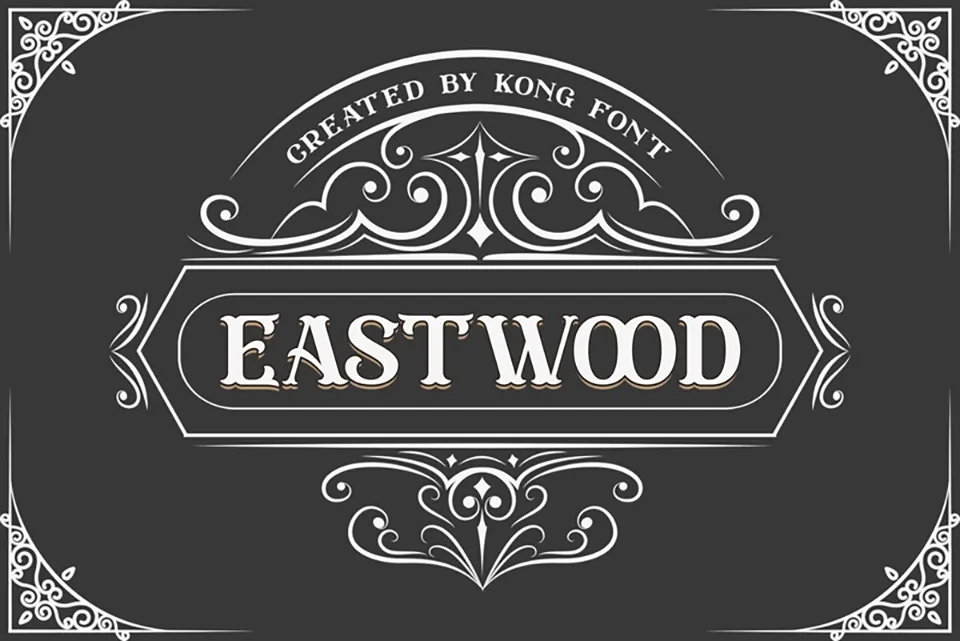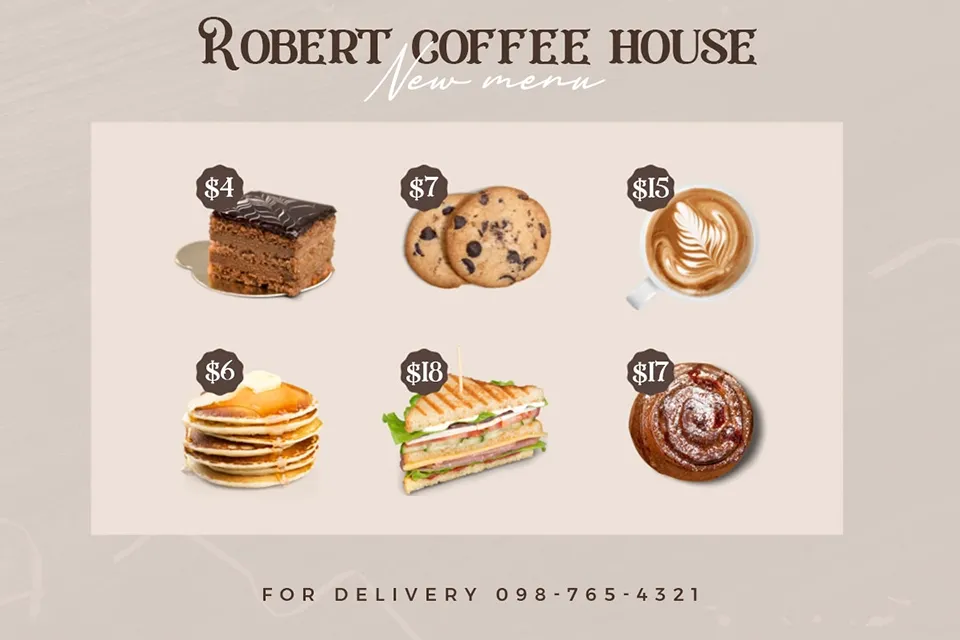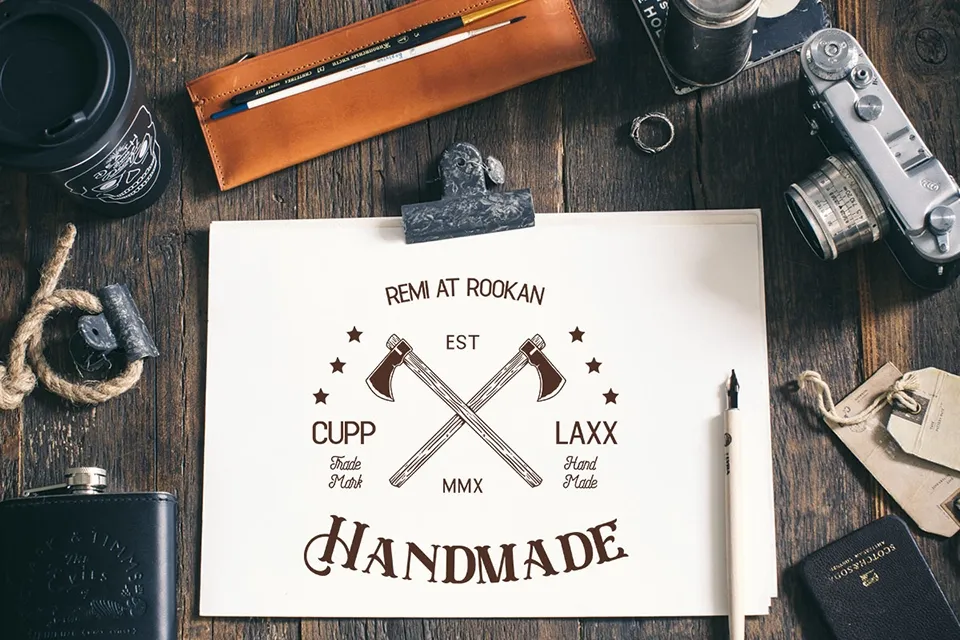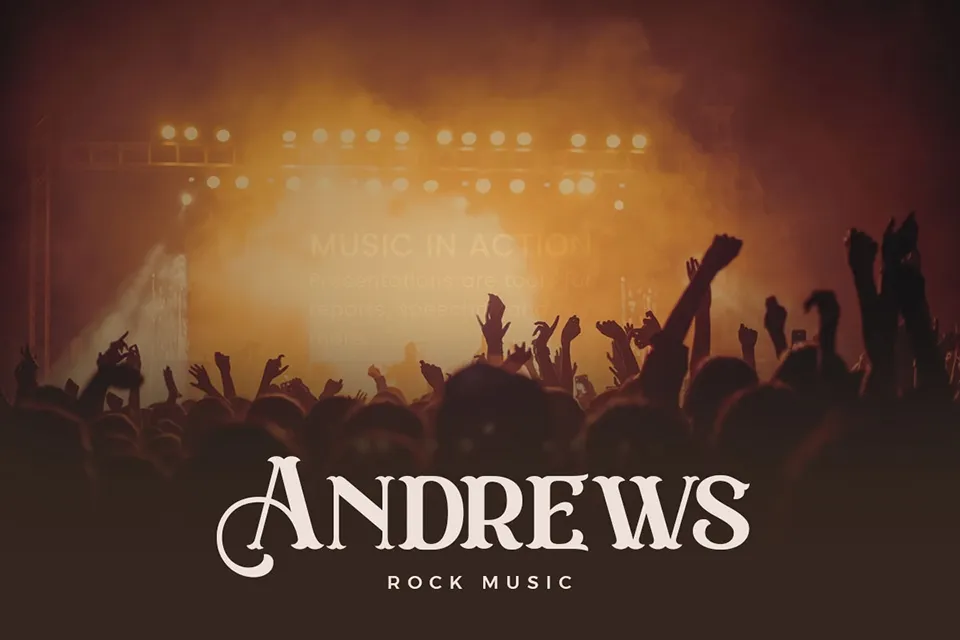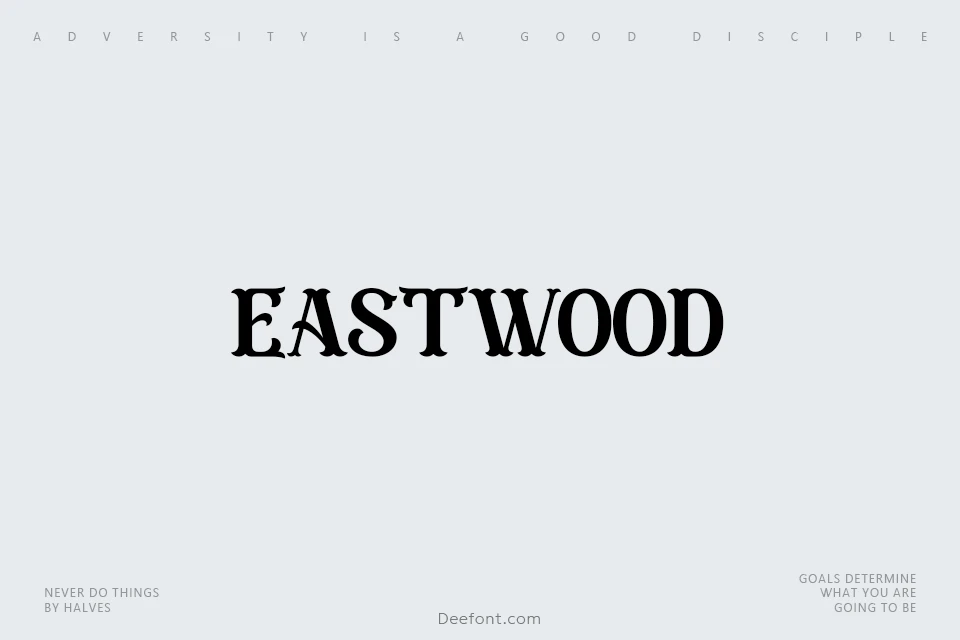
Eastwood Display Font
Eastwood Display Font is a bold Western-style display typeface designed to evoke classic retro and wood-carved aesthetics. It features two distinct uppercase styles, making it ideal for projects that require a vintage or Western vibe, such as book covers, shop signs, invitations, logos, and branding materials. The font is PUA encoded, allowing easy access to all glyphs and ligatures, and is perfect for adding a touch of character and flair to any creative design.